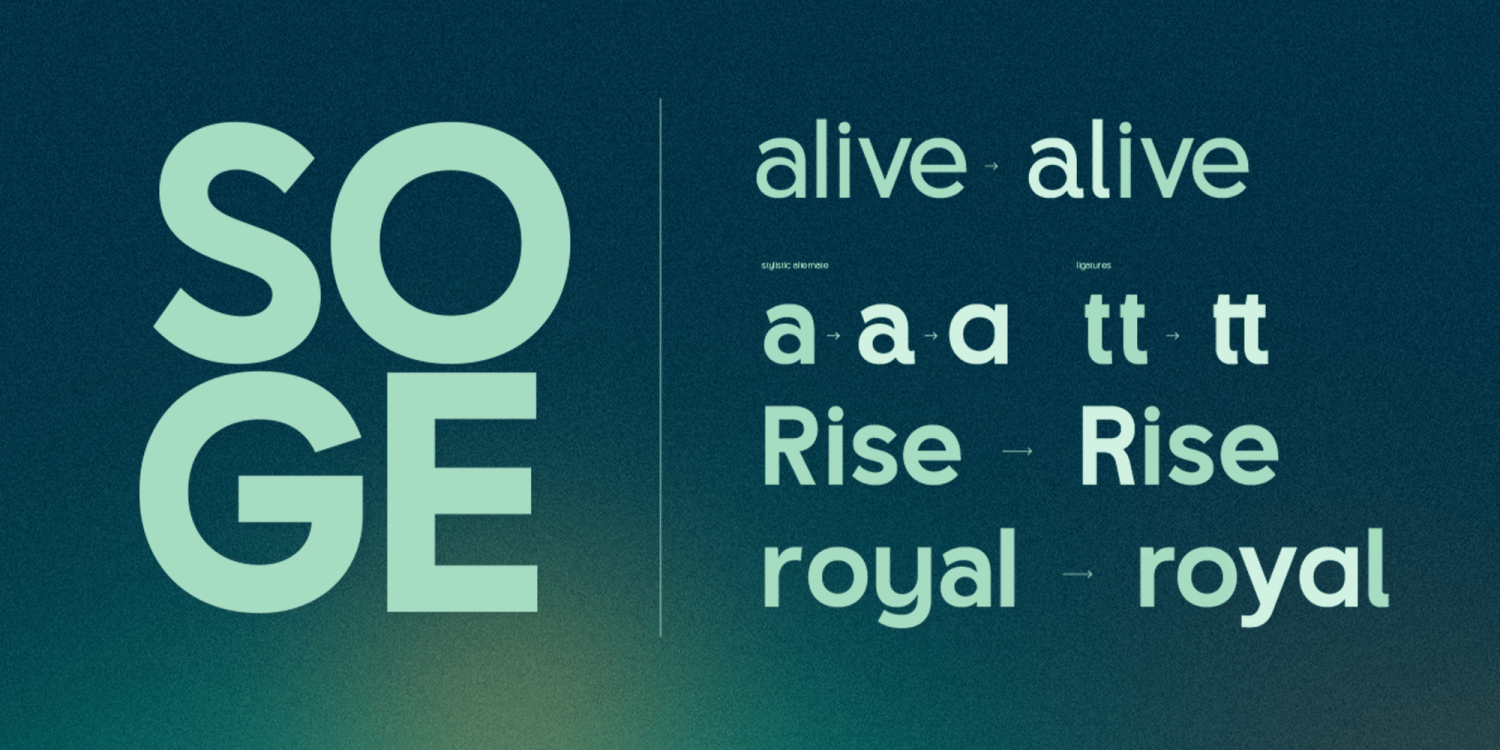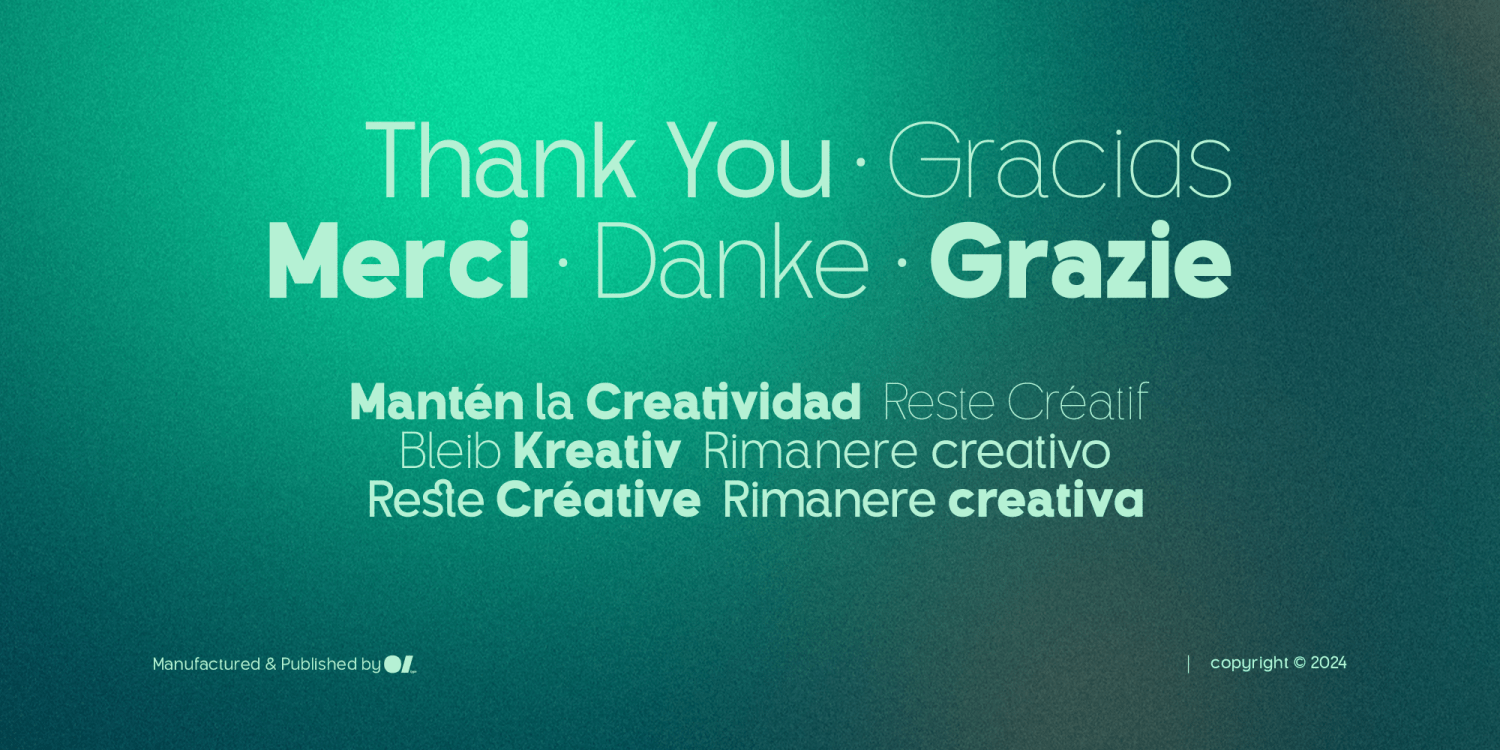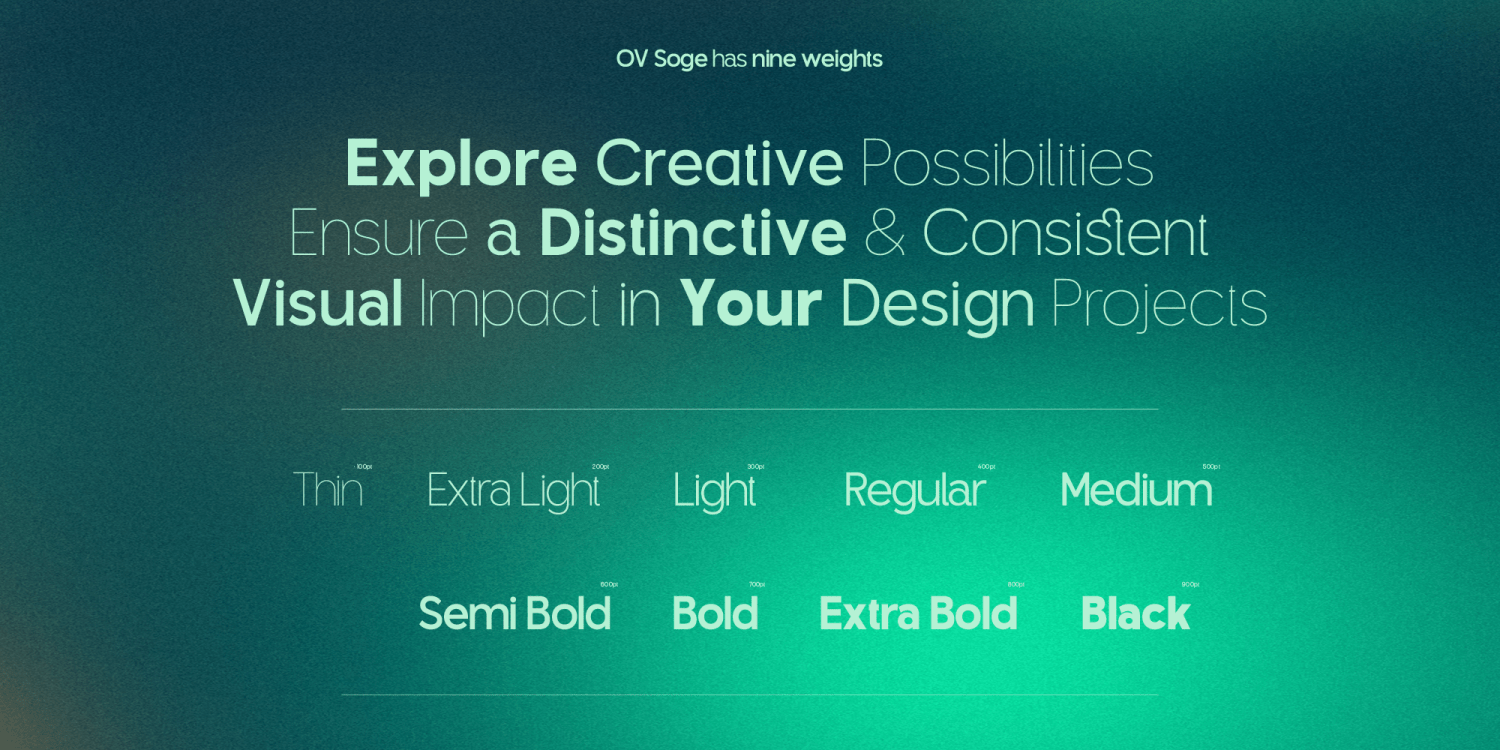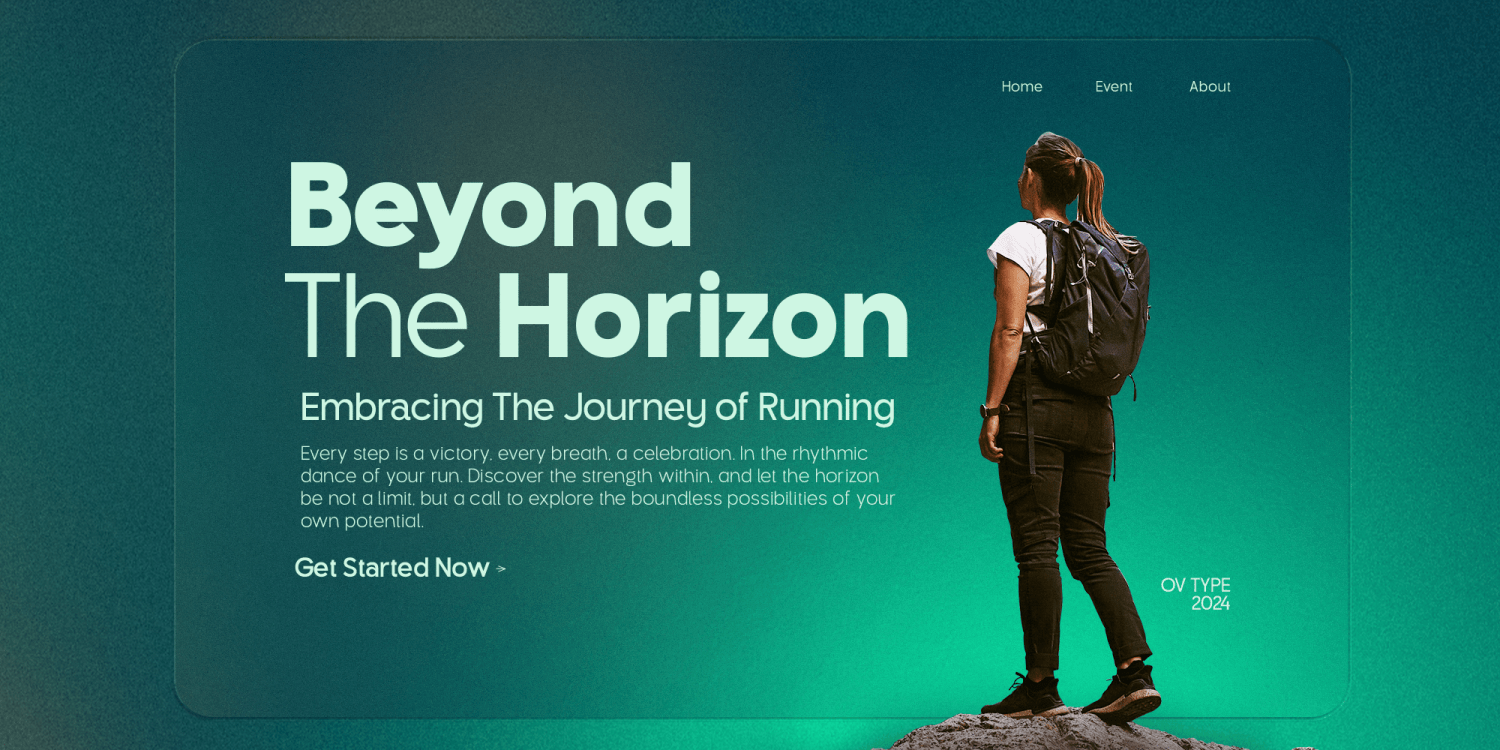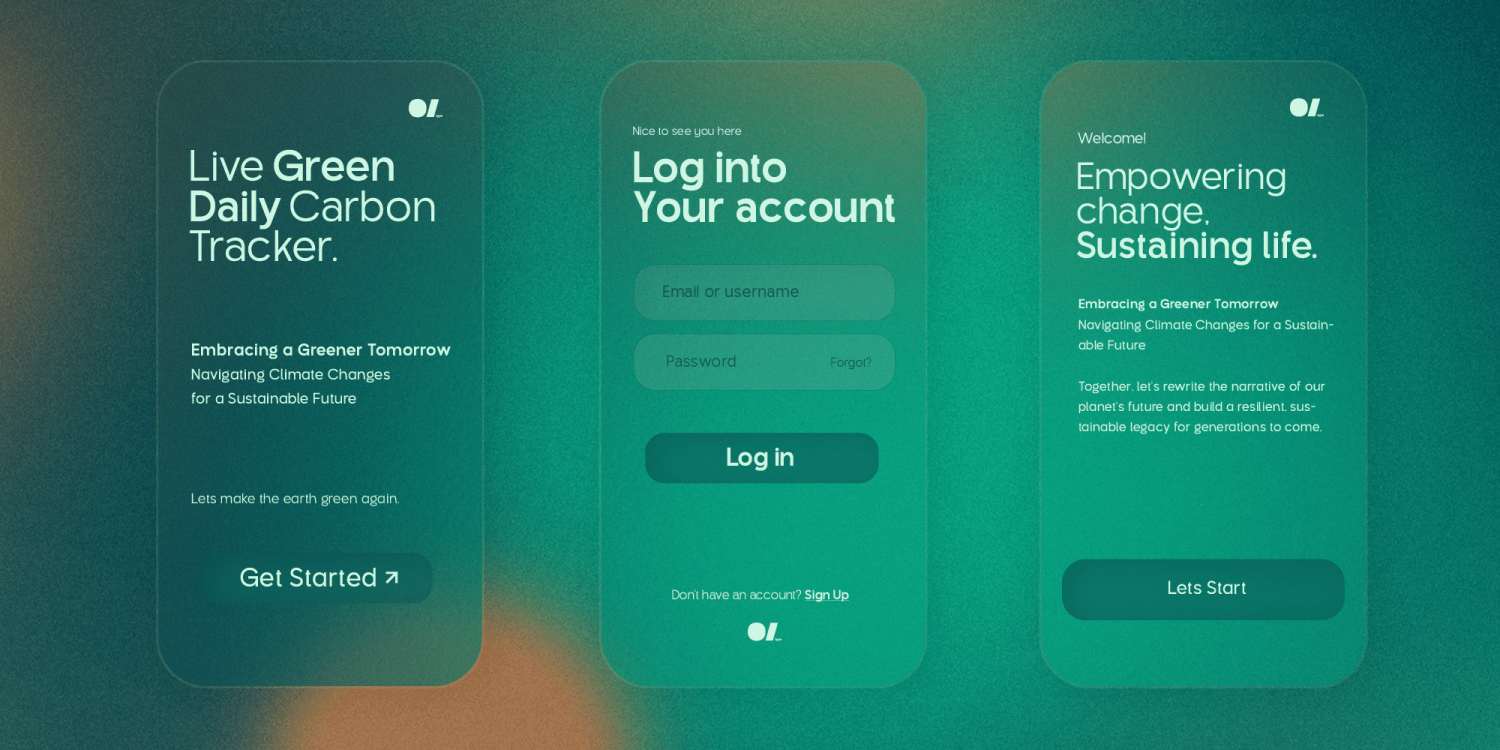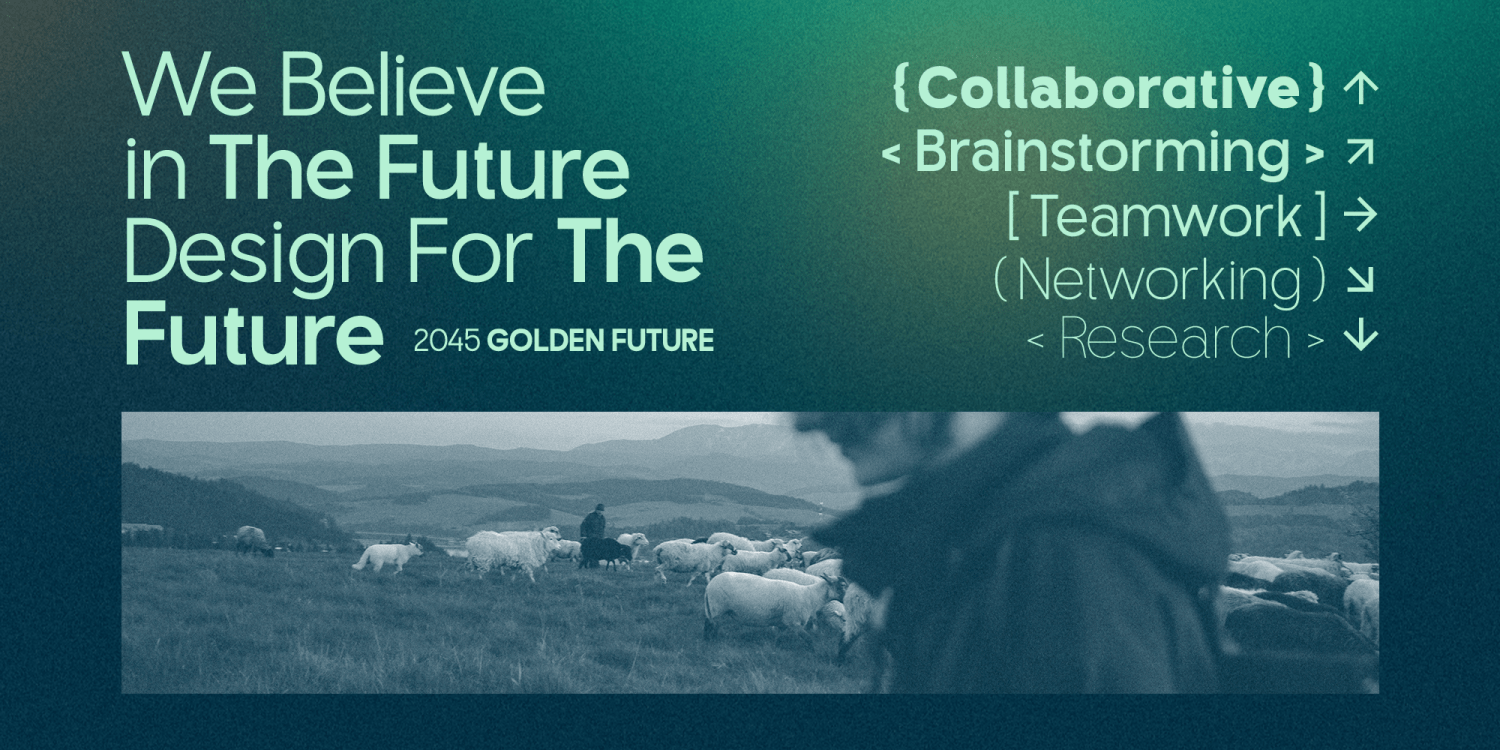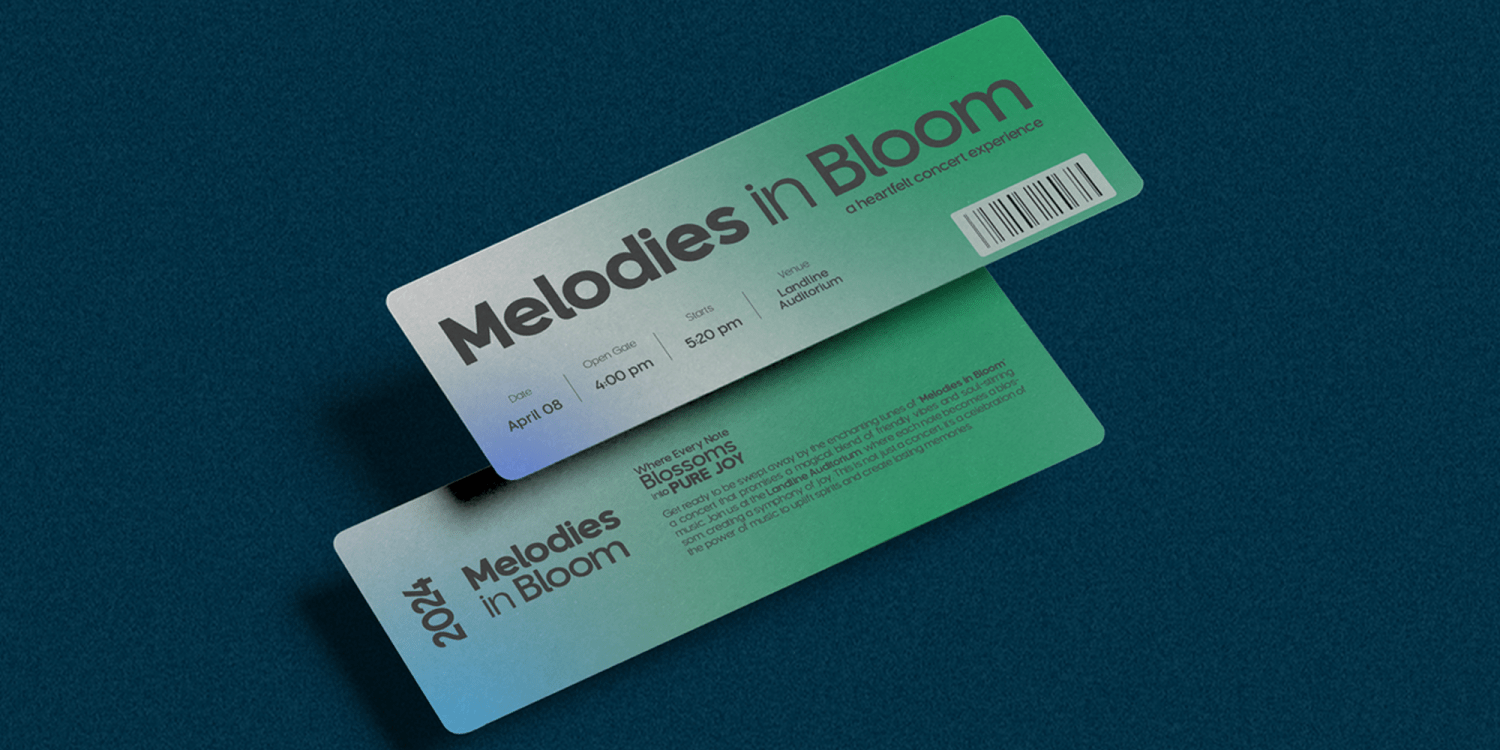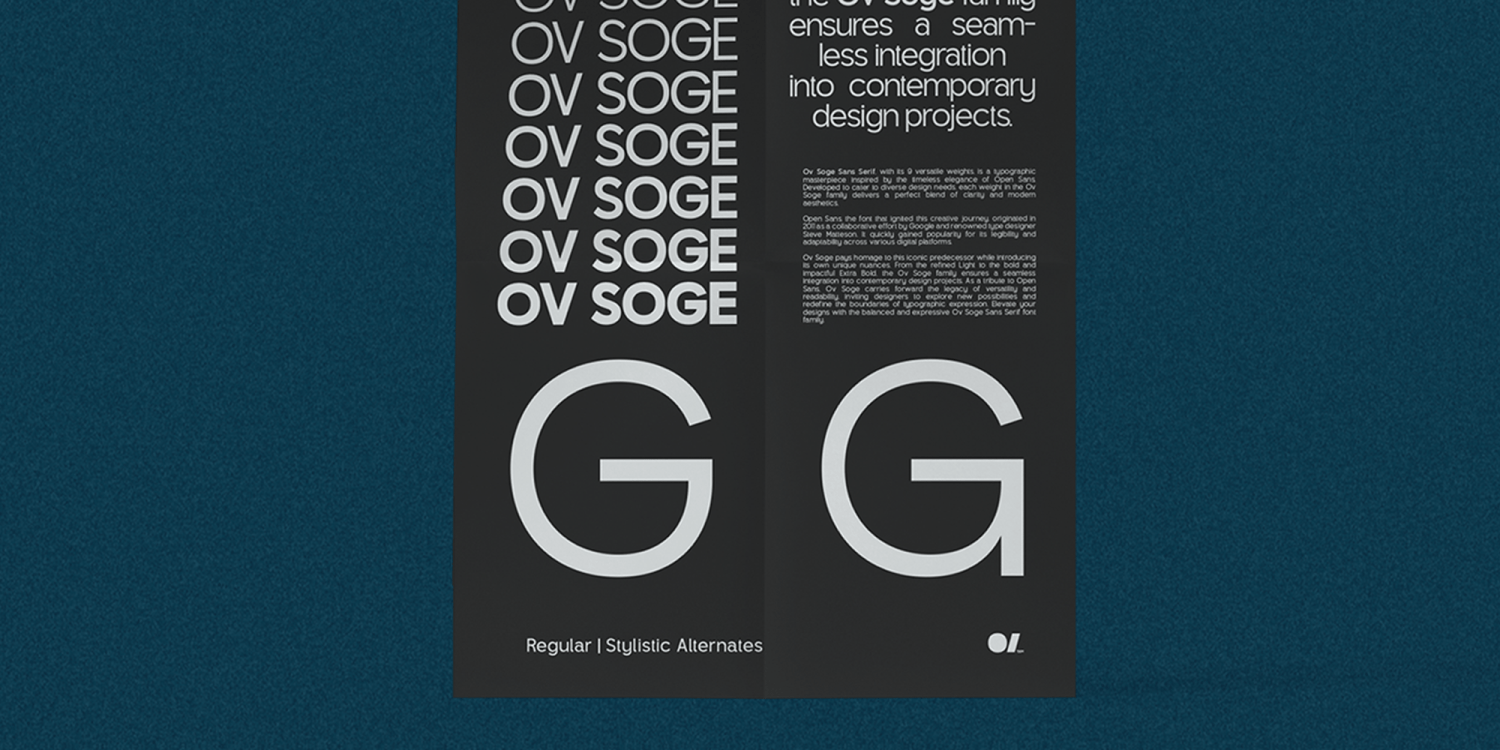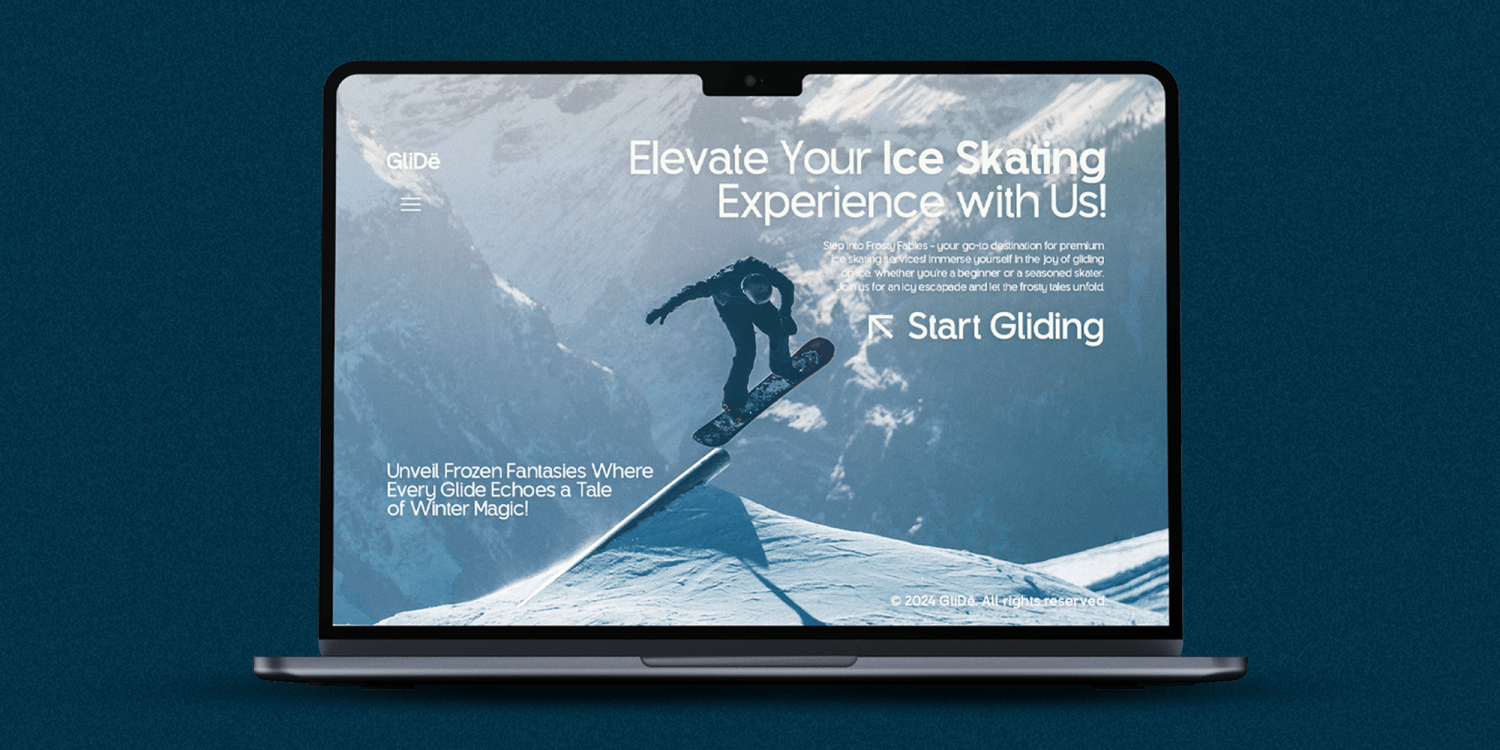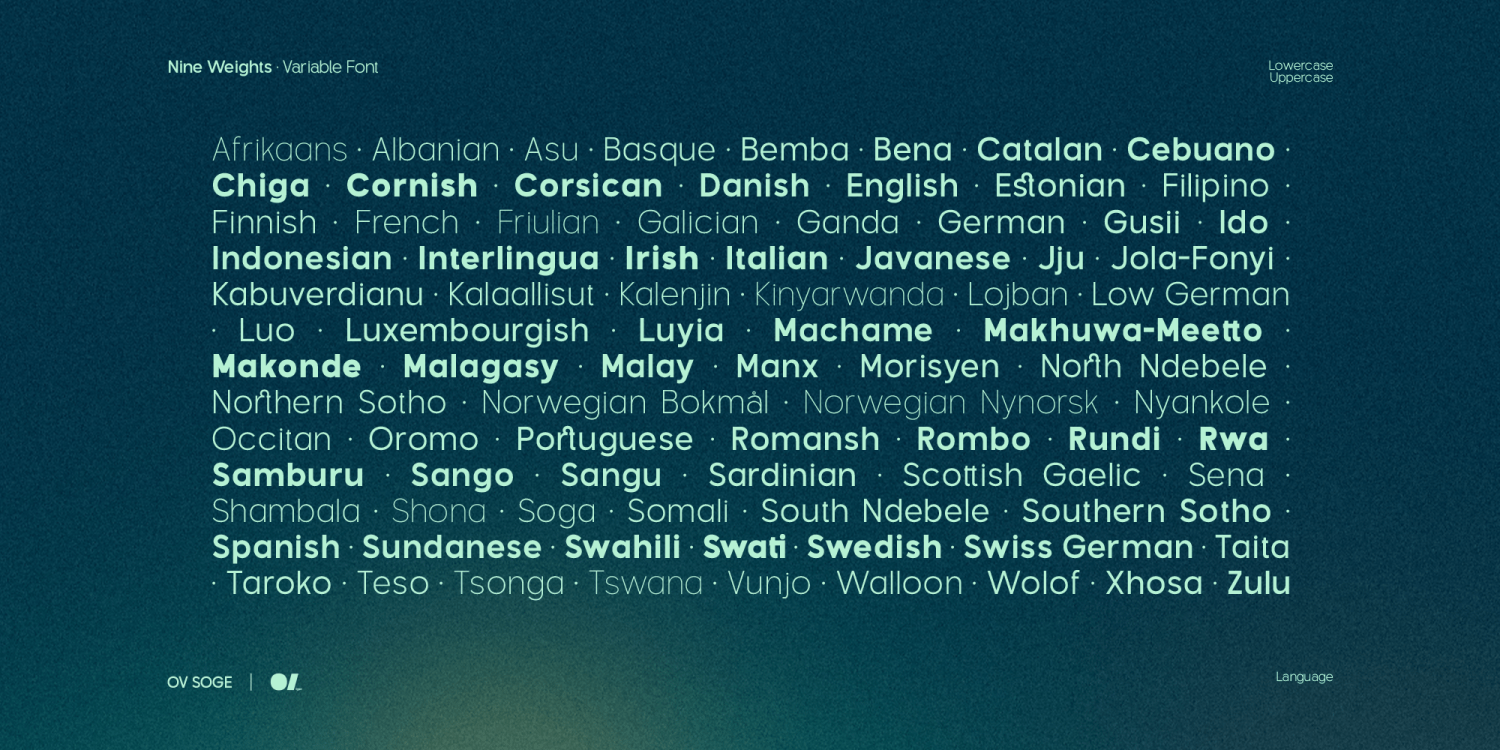
OV Soge
Font Family by OV Type
Introducing the latest update to OV SOGE Font – now in version 2.000! We've listened to your feedback and are excited to share the improvements we've made to elevate your design projects even further.
✨ Enhanced Kerning: We've fine-tuned the kerning to ensure even better readability and aesthetic balance in your designs.
Added Alternates: We've included some stylish alternates to give you more creative options and flexibility.
Weight Improvements: We've made adjustments to the letter weights for a more consistent and polished look across all styles.
We understand the challenges designers face in creating standout work, which is why we’re committed to making OV SOGE even better with regular updates. Our enhancements are designed to make your design process smoother and more enjoyable.